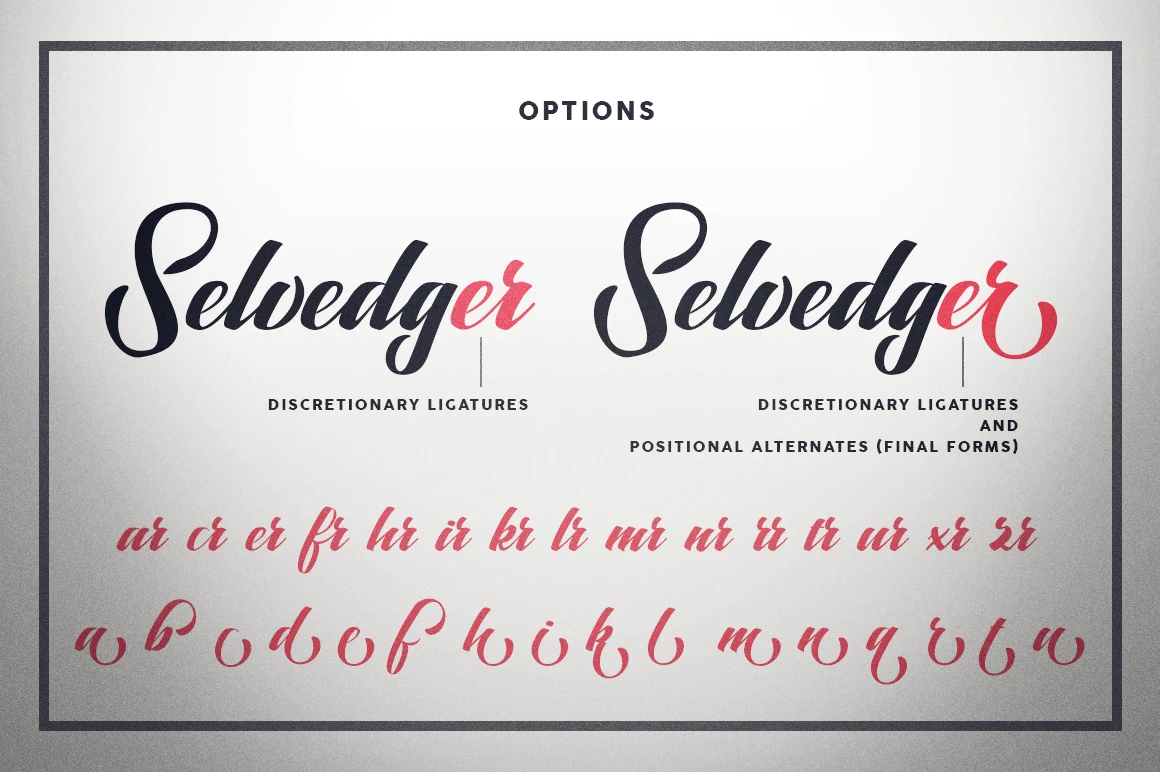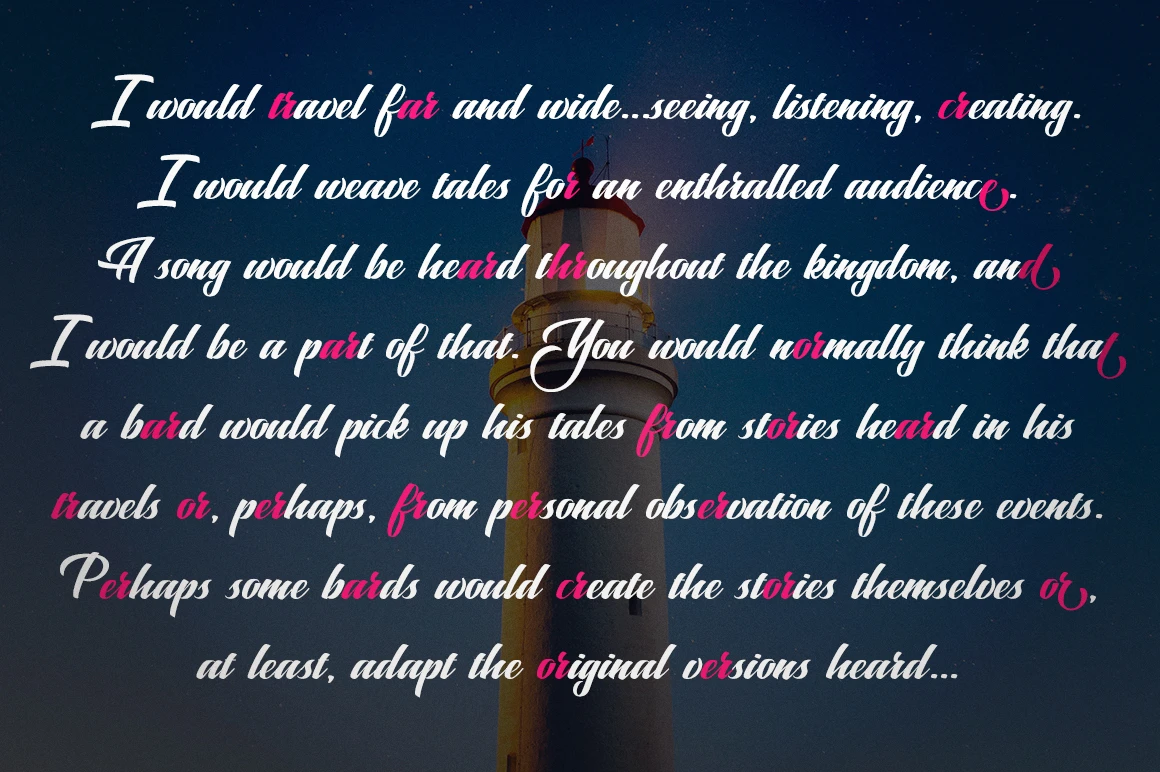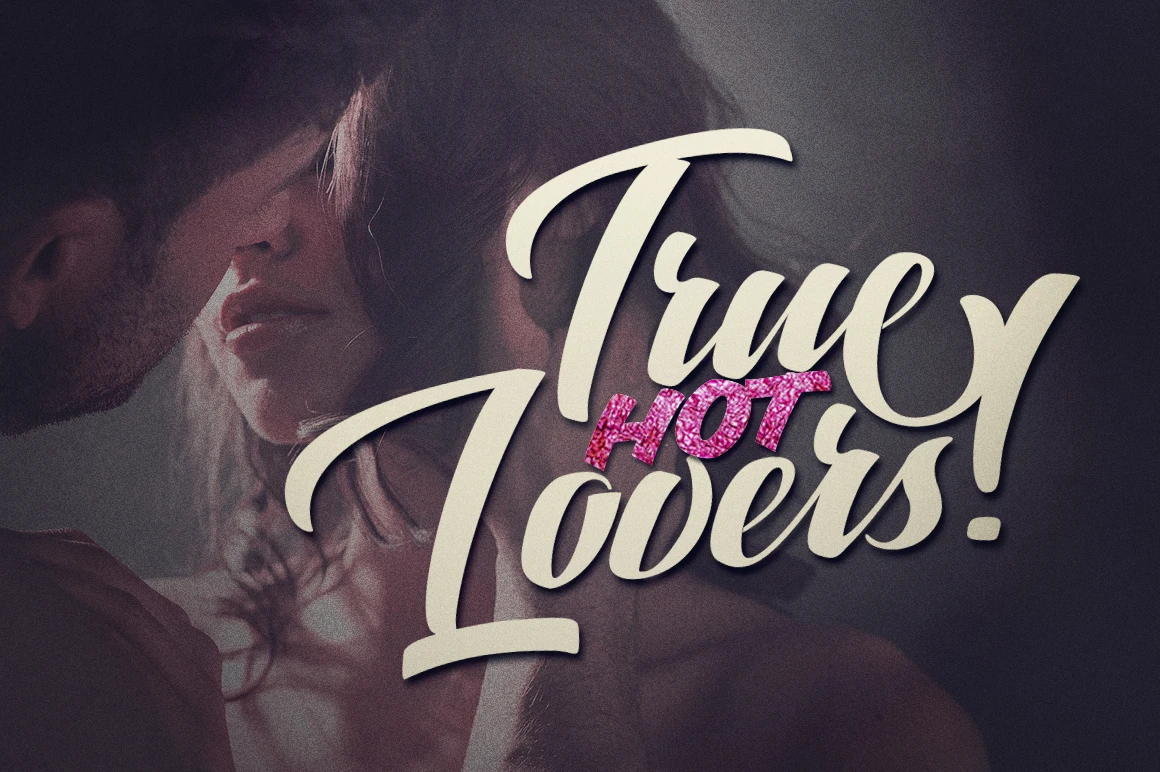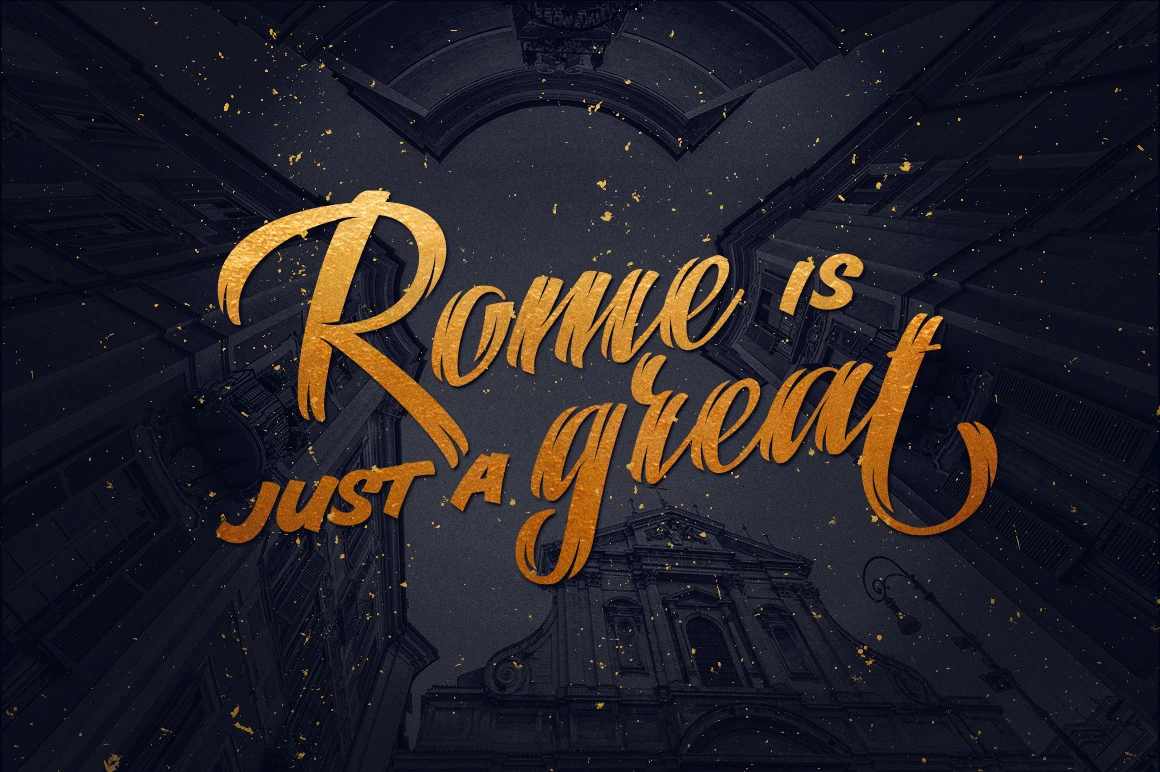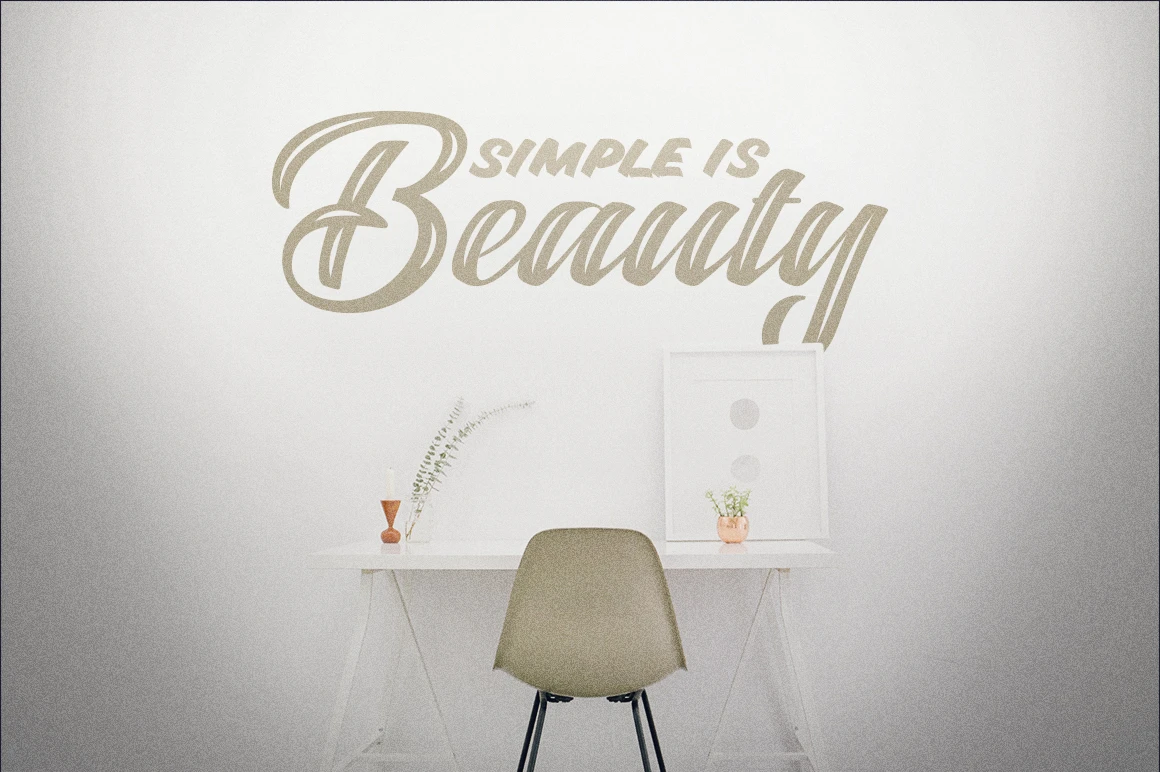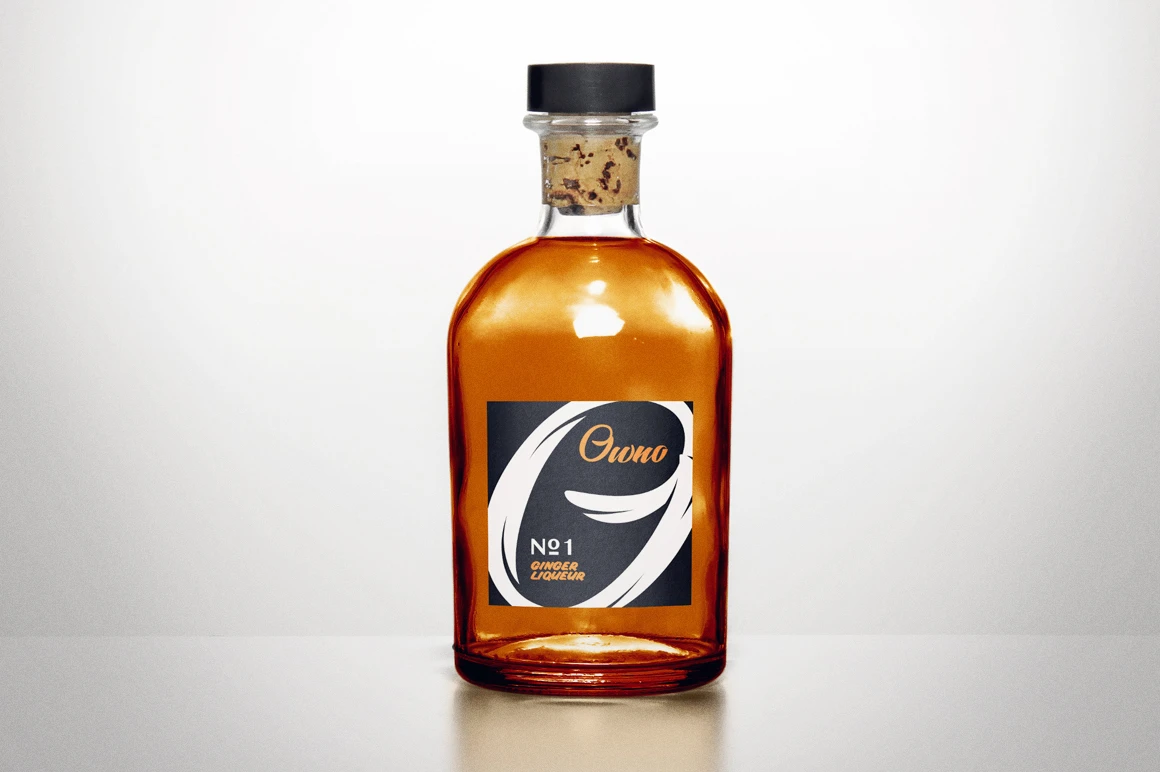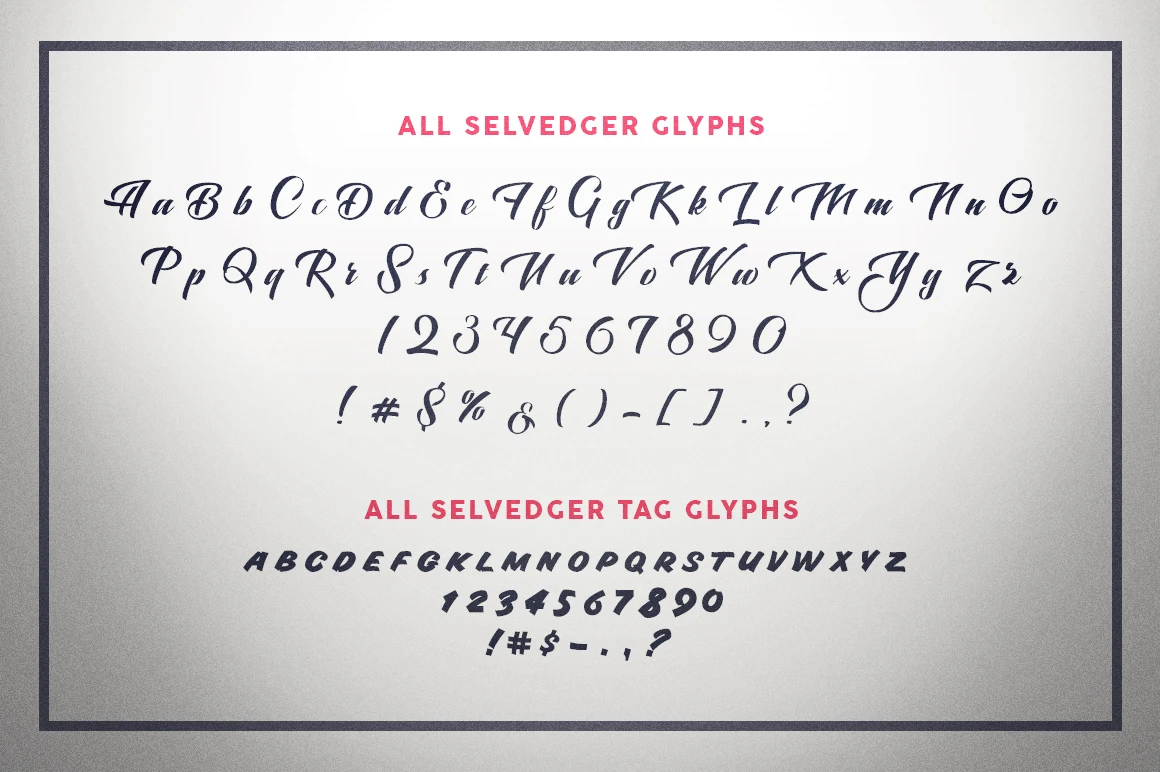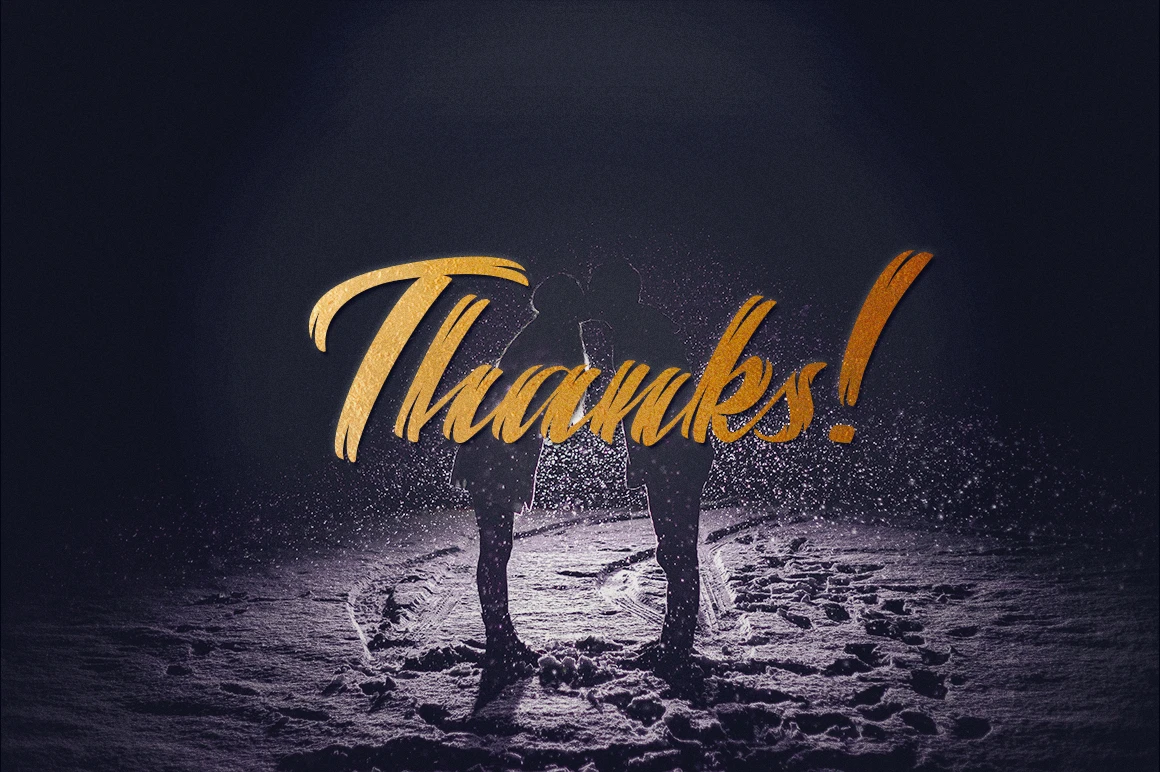
Selvedger • 5 styles
The Selvedger is a modern script font family designed for those who appreciate the beauty of calligraphic lettering. Inspired by top lettering artists, it delivers an authentic hand-drawn look that adds a personal touch to any design. Ideal for logos, prints, cards, posters, and other creative projects, The Selvedger brings fluid, expressive style to both bold statements and elegant details.
• Discretionary Ligatures